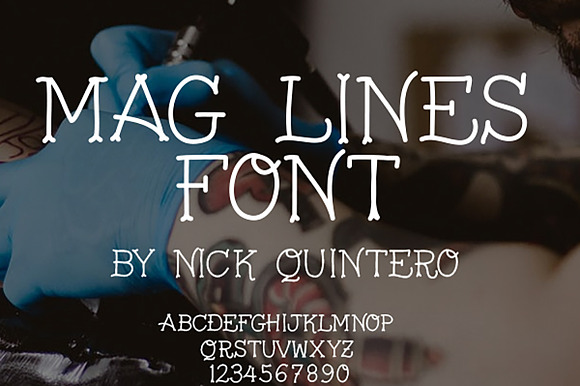
Mag Lines Tattoo Font
The Mag Lines font is a hand drawn digital font that is perfect for tattoo designs and other art with an old school feel.
Inspired by traditional artists that works in a modern world.